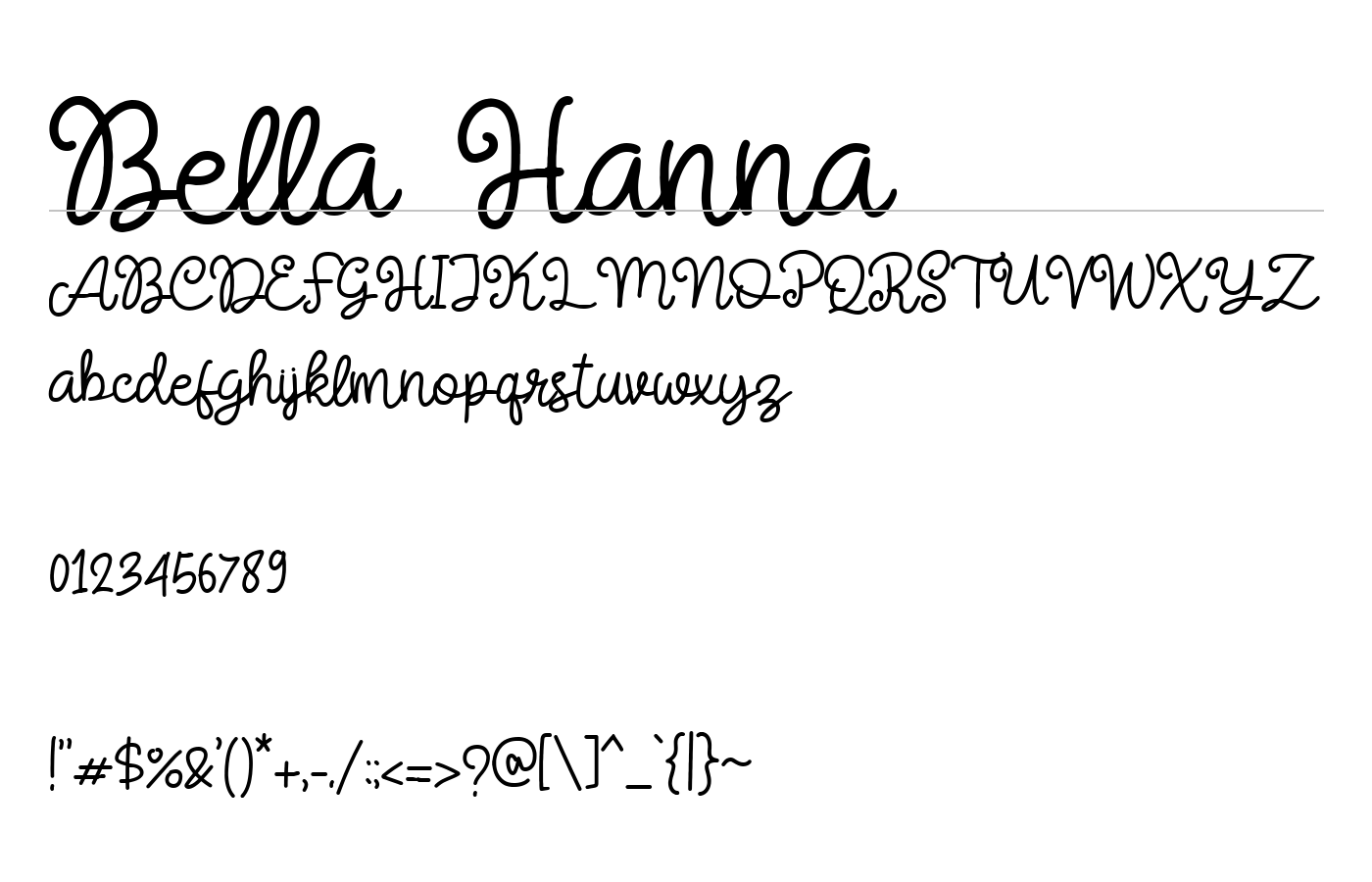
Bella Hanna is a charming, handwritten script font with a smooth, flowing style that feels both playful and elegant. Its moderate weight and rounded, connected letters give it a warm, personal touch, making it perfect for creative branding, invitations, and casual yet stylish designs. This font works well in contexts that seek a friendly and approachable vibe without losing sophistication.
| Font family | Bella Hanna Font |
| Designer | Muhammad Sirojuddin |